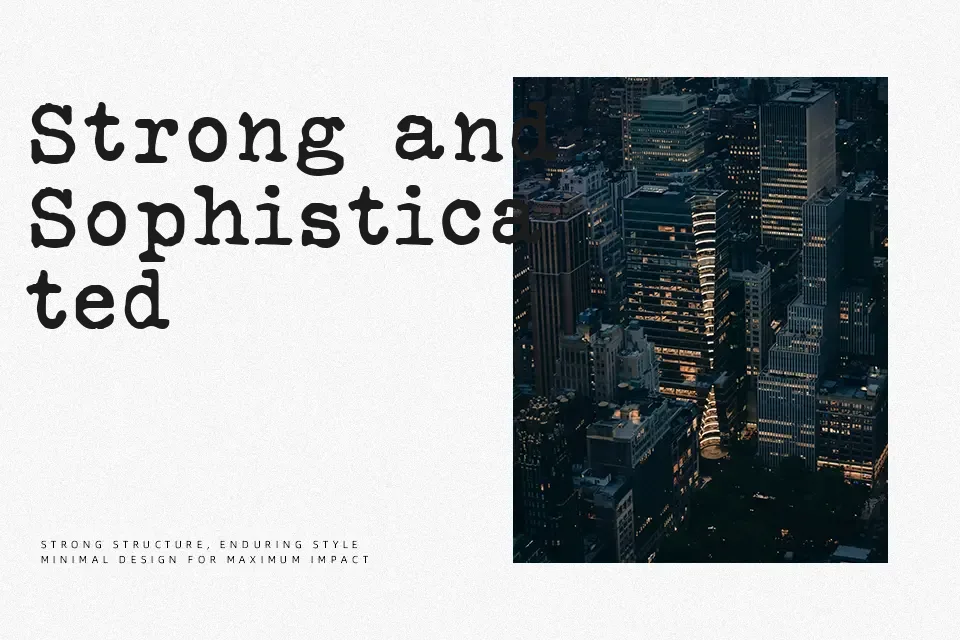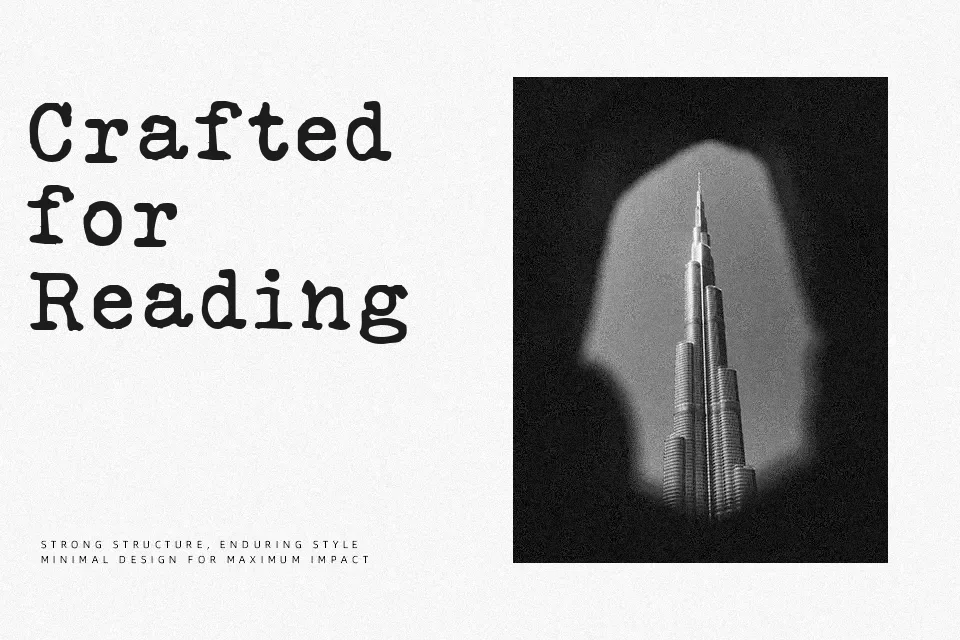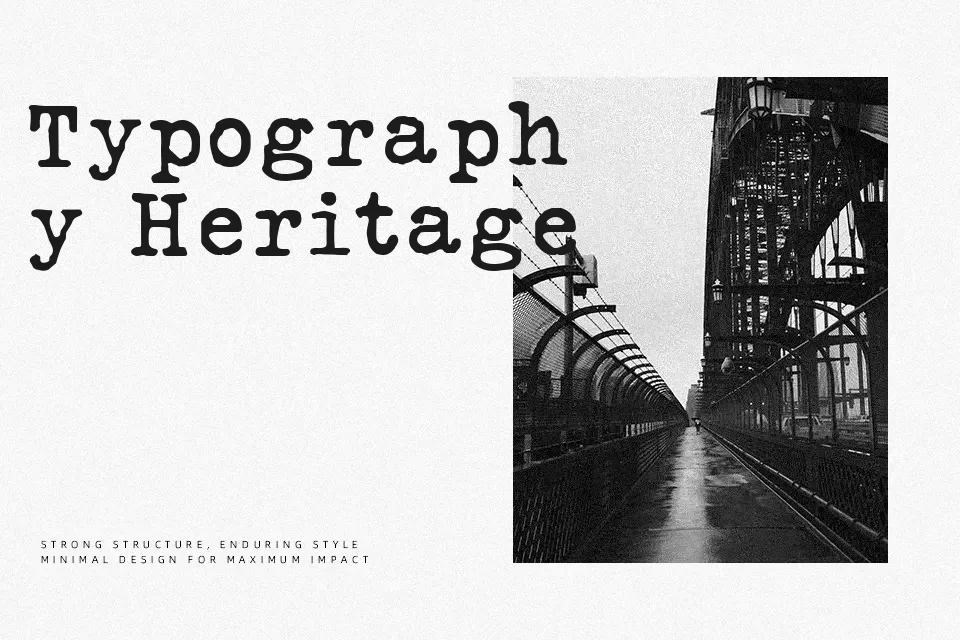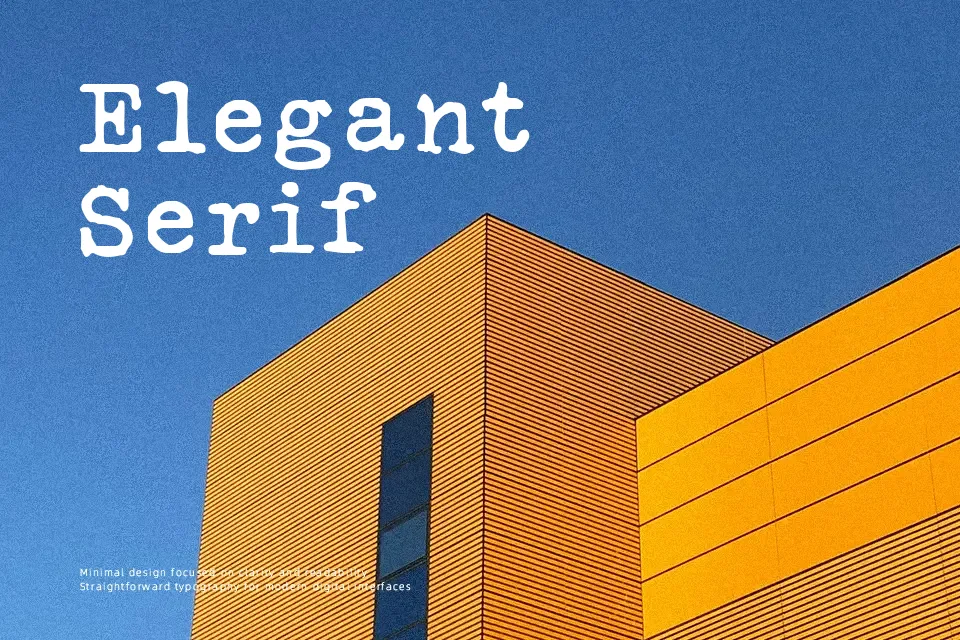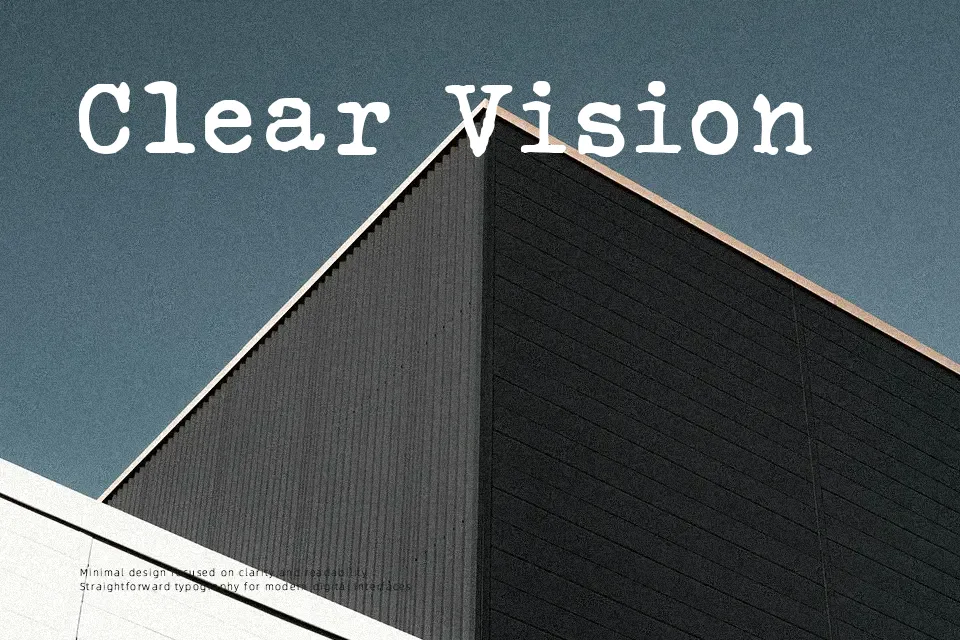
Silk Remington Font
Silk Remington Font introduces a classic mechanical typewriter aesthetic defined by uniform stroke weights, prominent slab serifs, and structured monospaced character proportions. The letterforms display balanced spacing and clean geometric forms that create an authentic retro atmosphere in display headlines, editorial callouts, and themed branding assets. Each glyph preserves reliable clarity across medium and large scales, making the design particularly effective for historical identity projects. However, the rigid monospaced rhythm and absence of stroke modulation reduce comfort during extended reading. Dense text blocks become visually repetitive, making the typeface best suited for focused titles rather than immersive prose.
Best For: vintage product packaging, retro editorial headlines, historical book covers, themed poster graphics
Not Ideal For: continuous body text, mobile interface captions, dense legal documents, spreadsheet data
Perfect for branding, editorial, and headline, with a classic and display style.